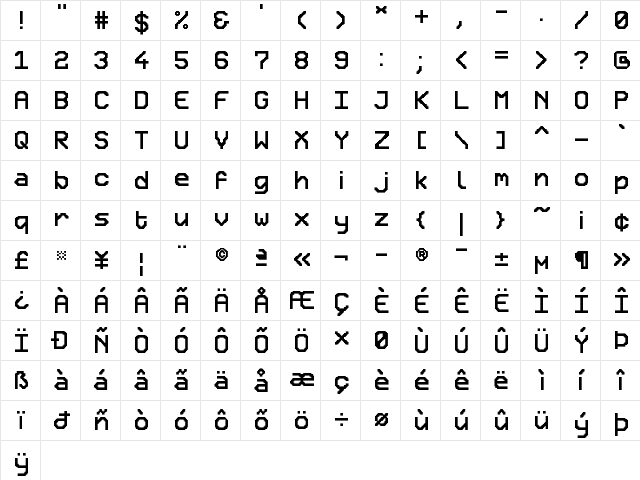
Retron2000 Regular
Design Context for Retron2000 Typeface
Retron2000 has the warm character of retro typography — evoking diners, record sleeves, and the golden age of print advertising.
Font Pairing: Combine Retron2000 with a simple slab or neutral sans — period-accurate companions reinforce the vintage feel without competing for attention.
Pro Tip: Lean into Retron2000's period character by pairing it with aged paper textures, muted colour palettes, and vintage illustration styles.